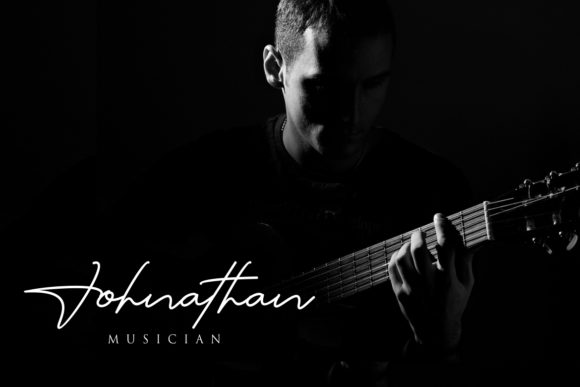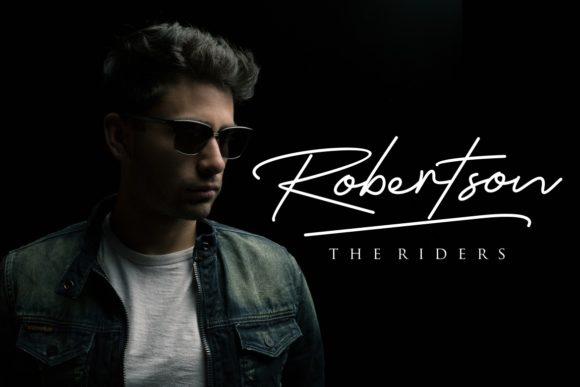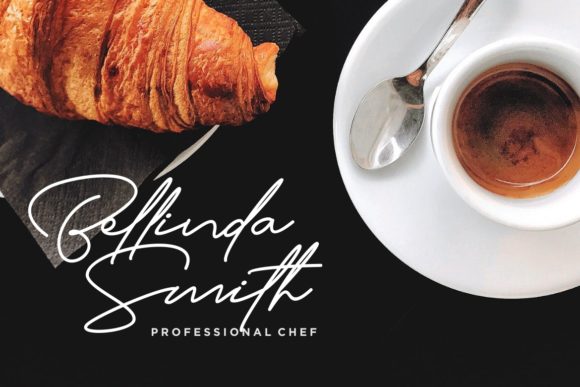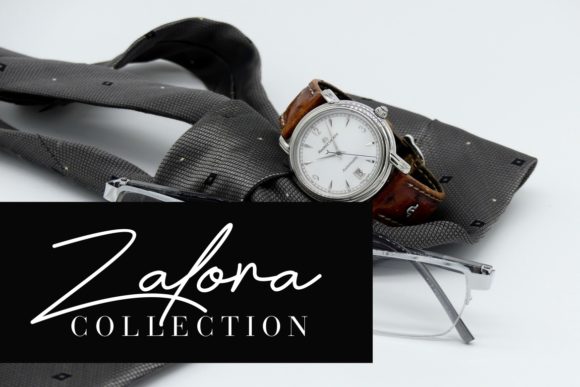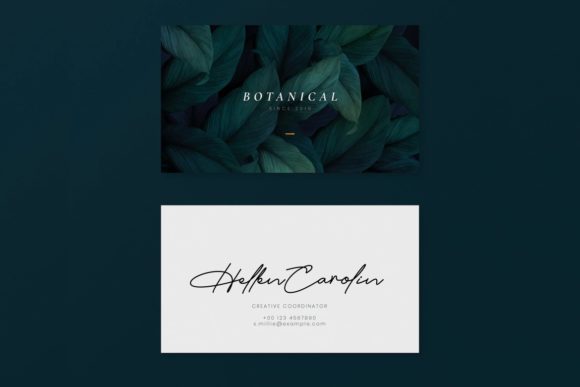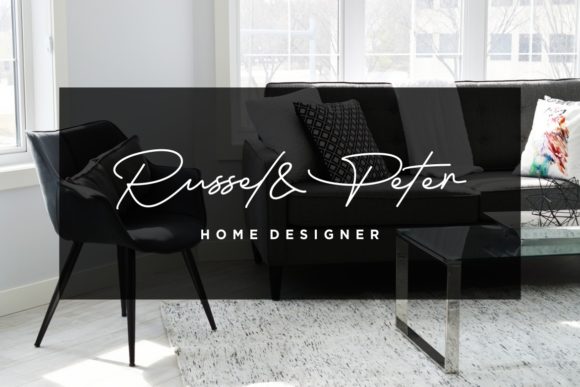
Austin Capital Font: Elevate Your Designs with Elegance and Sophistication
Austin Capital is an elegant handwritten signature font that has taken the design world by storm. With its natural and stylish flow, this font is perfect for adding a unique touch to any design project. Whether you’re a designer, crafter, or DIY enthusiast, Austin Capital is an excellent choice for those looking to infuse their work with a sense of sophistication and refinement.
The Characteristics of Austin Capital Font
Austin Capital is a beautifully crafted handwritten signature font that boasts a range of characteristics that set it apart from other fonts. Some of its key features include:
- Elegant and Refined: Austin Capital exudes elegance and sophistication, making it perfect for designs that require a touch of luxury and refinement.
- Natural and Stylish Flow: The font’s natural flow and stylish curves give it a unique and distinctive look that is sure to capture attention.
- Handwritten Signature Style: Austin Capital’s handwritten signature style gives it a personal and bespoke feel, making it perfect for designs that require a touch of personality.
- Versatile: This font is incredibly versatile and can be used for a wide range of design projects, from branding and packaging to wedding invitations and more.
Uses for Austin Capital Font
Austin Capital is a versatile font that can be used for a wide range of design projects. Some of the most popular uses for this font include:
- Branding and Logo Design: Austin Capital’s elegant and refined style makes it perfect for branding and logo design projects that require a touch of sophistication.
- Wedding Invitations and Stationery: This font’s handwritten signature style and natural flow make it a popular choice for wedding invitations, stationery, and other paper crafts.
- Packaging Design: Austin Capital’s unique and distinctive look makes it perfect for packaging design projects that require a touch of elegance and refinement.
- Digital Design: This font can also be used for digital design projects, such as social media graphics, blog headers, and more.
Tips for Using Austin Capital Font
To get the most out of Austin Capital, here are a few tips to keep in mind:
- Use it Sparingly: Because Austin Capital is such a distinctive font, it’s best to use it sparingly to avoid overwhelming the design.
- Pair it with Other Fonts: This font pairs well with a range of other fonts, including sans-serif fonts and script fonts.
- Experiment with Colors: Austin Capital looks great in a range of colors, from bold and bright to soft and pastel.
- Pay Attention to Size: Make sure to adjust the size of the font to suit the design and ensure that it’s legible.
Why Designers and Crafters Love Austin Capital Font
Designers and crafters love Austin Capital for a range of reasons. Some of the most popular reasons include:
- Unique and Distinctive: This font’s unique and distinctive look sets it apart from other fonts and makes it a great choice for designers and crafters looking to add a touch of personality to their work.
- Elegant and Refined: Austin Capital’s elegant and refined style makes it perfect for designs that require a touch of sophistication and luxury.
- High-Quality: Austin Capital is a high-quality font that is designed to produce crisp and clear results, even at small sizes.
In conclusion, Austin Capital is an elegant handwritten signature font that is perfect for designers and crafters looking to add a touch of sophistication and refinement to their work. With its natural and stylish flow, this font is sure to capture attention and elevate any design project. Whether you’re working on branding and logo design, wedding invitations, packaging design, or digital design, Austin Capital is an excellent choice.